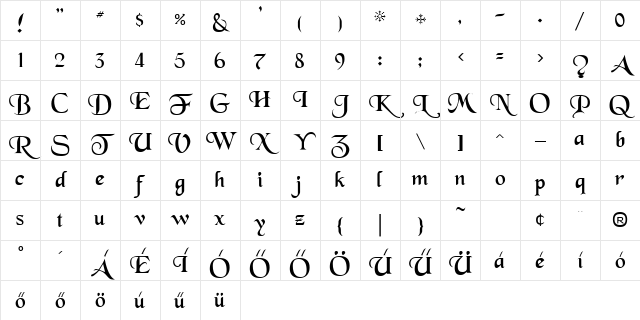
BlackChancery-HU Normal Free Font
BlackChancery-HU Normal
Complete BlackChancery-HU Normal glyph index. Displaying only characters natively supported by BlackChancery-HU Normal font.
Design Context for BlackChancery-HU
BlackChancery-HU is a composed and adaptable typeface that performs quietly and consistently across a wide range of design contexts.